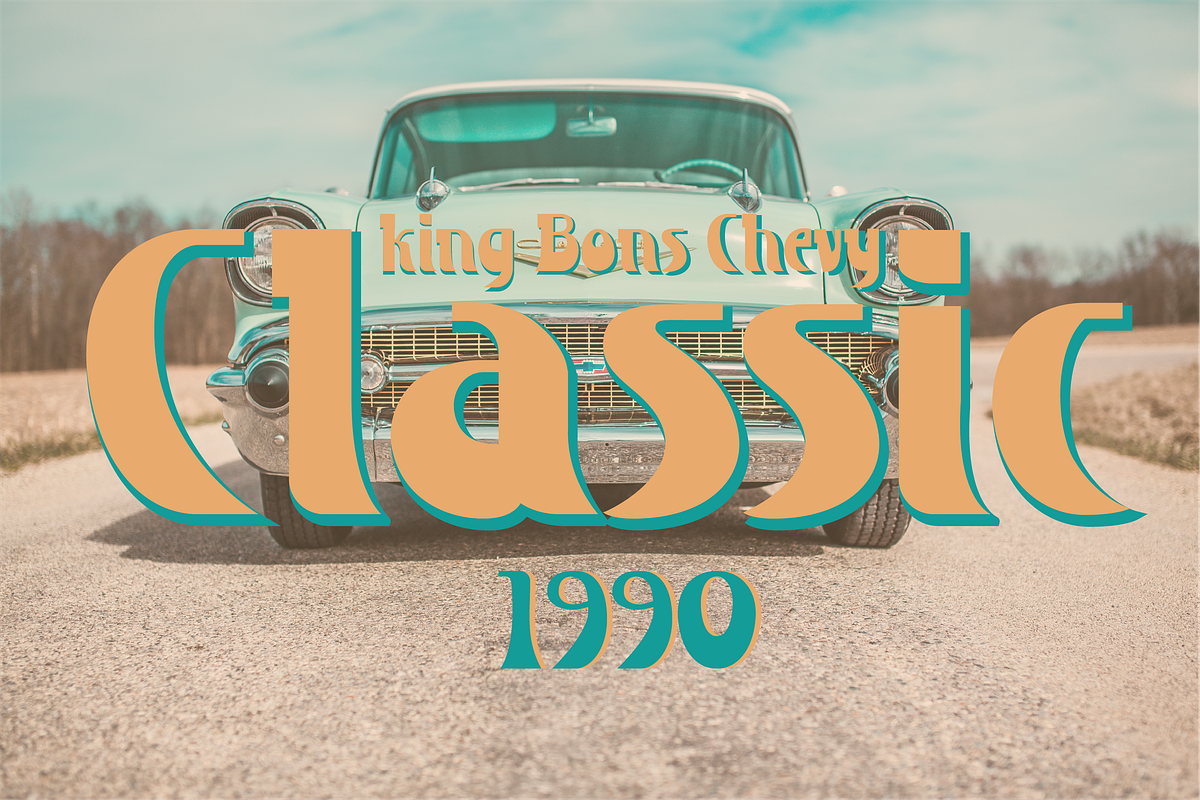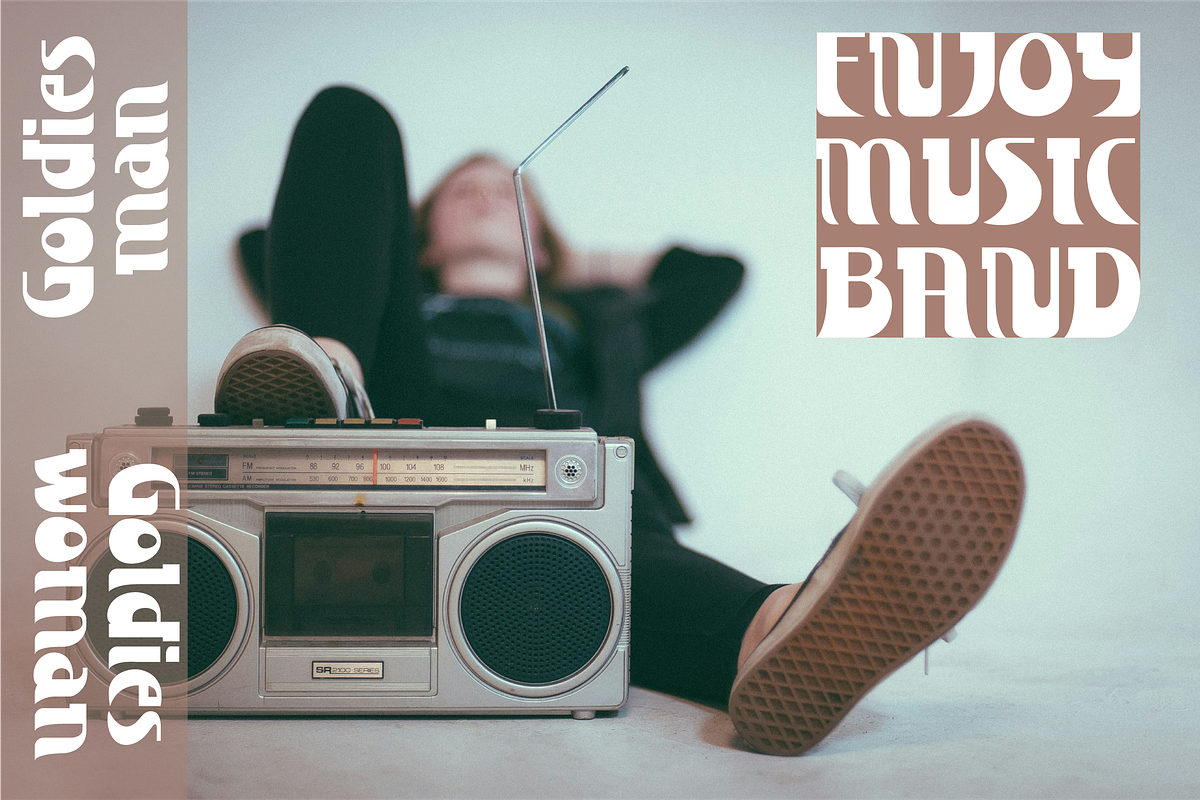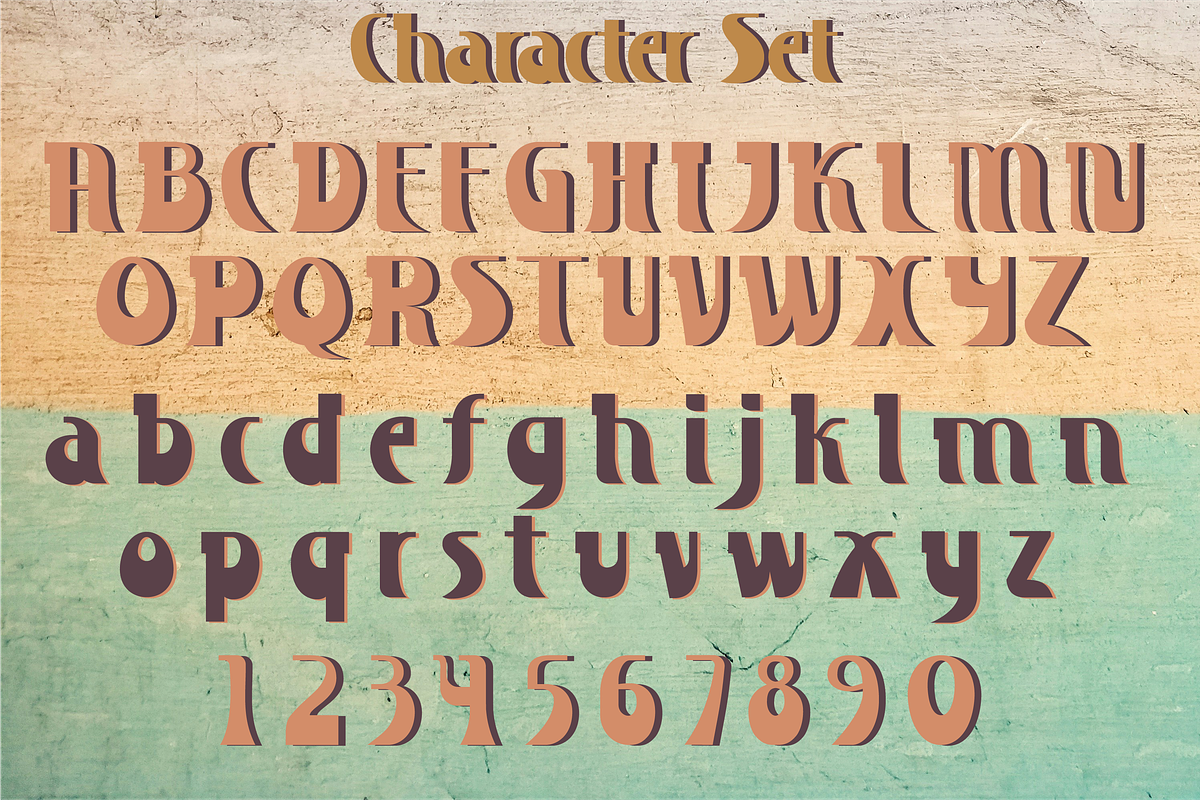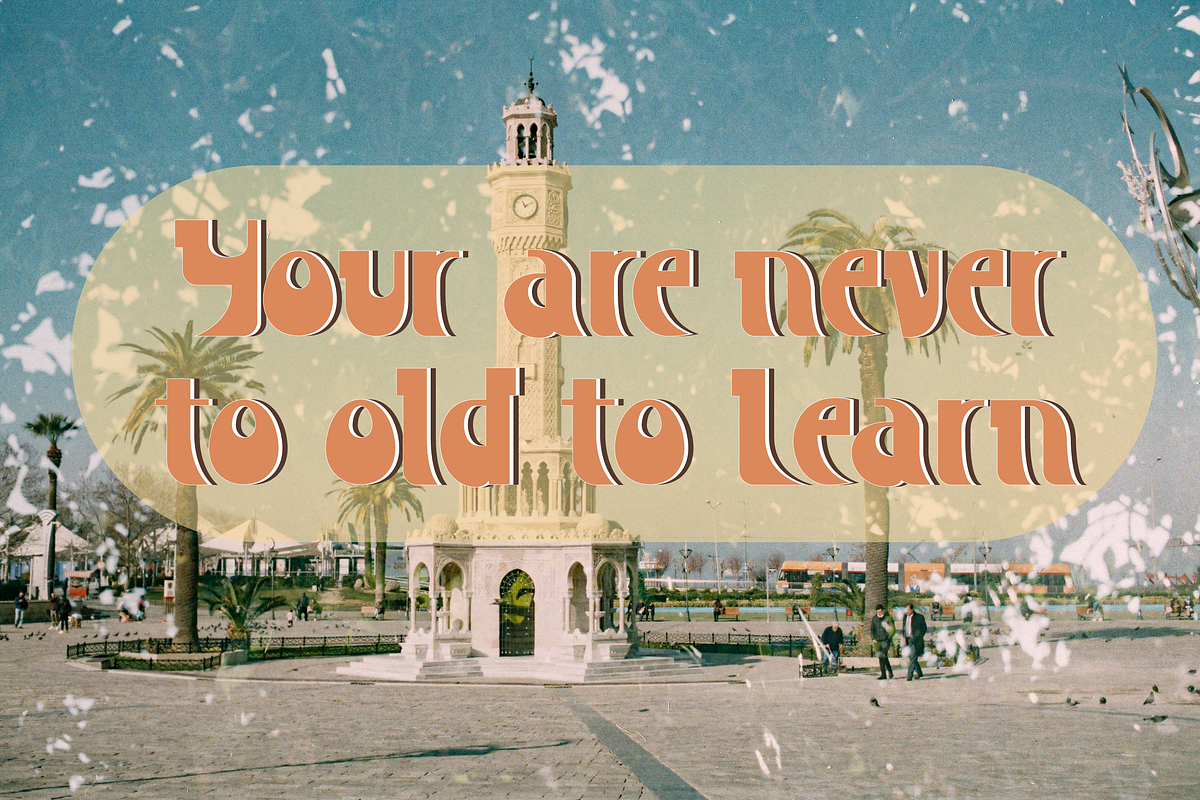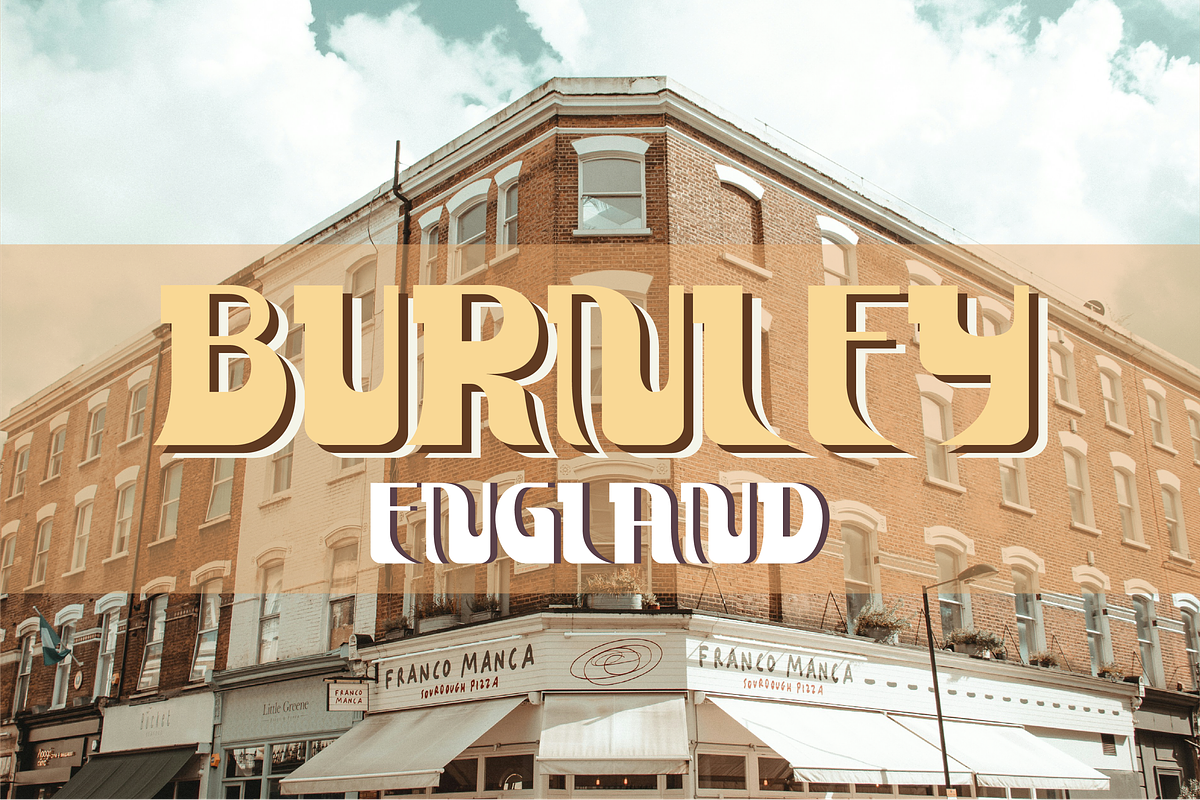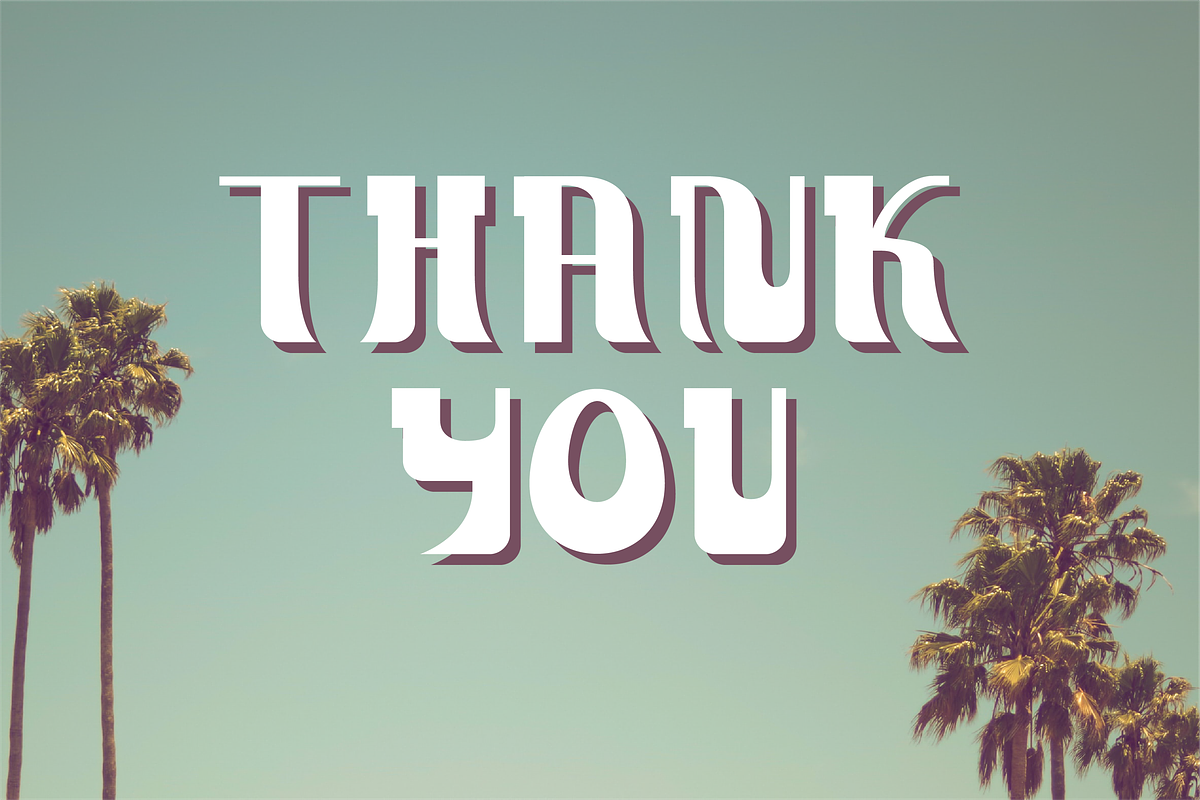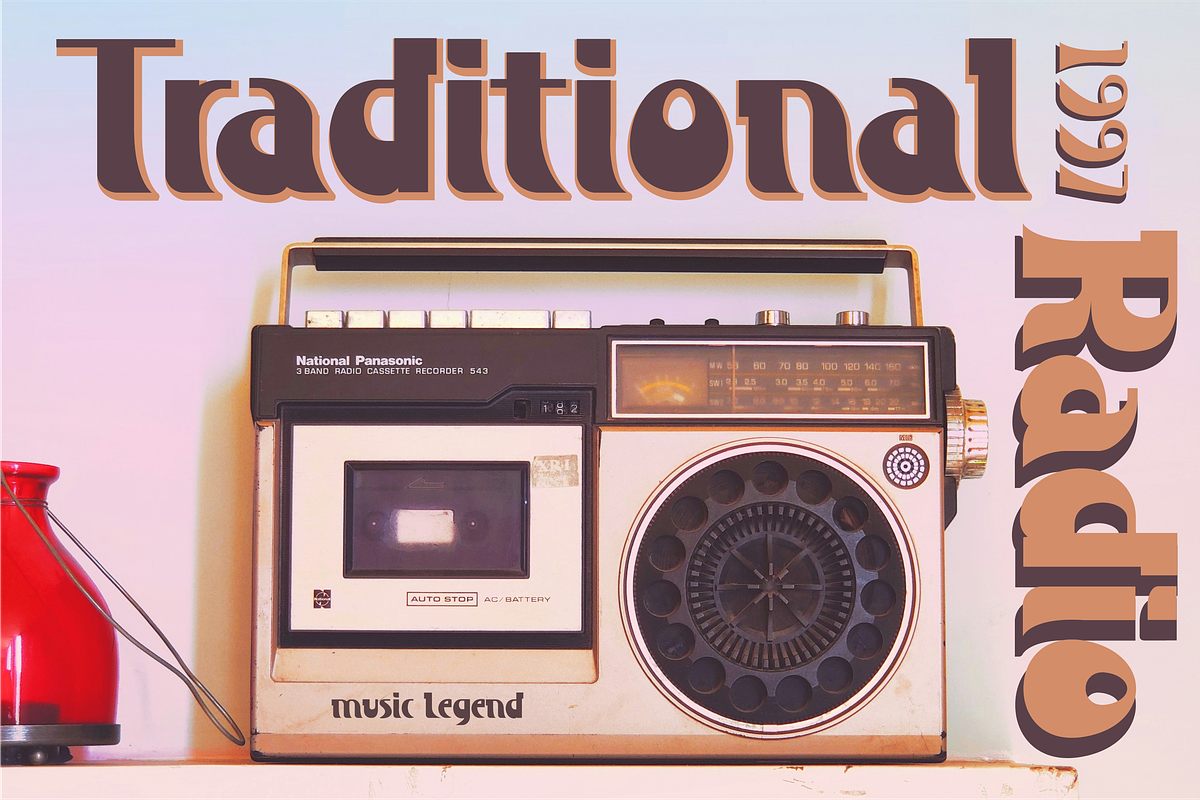
Ruteborn a playful retro font
Ruteborn is a lively retro display font exuding nostalgic charm and adventure. With bold, rounded letterforms and playful curves, it evokes the spirit of vintage signage and road trip memories. Perfect for capturing attention on posters, banners, and designs seeking a retro-inspired aesthetic with a touch of whimsy.